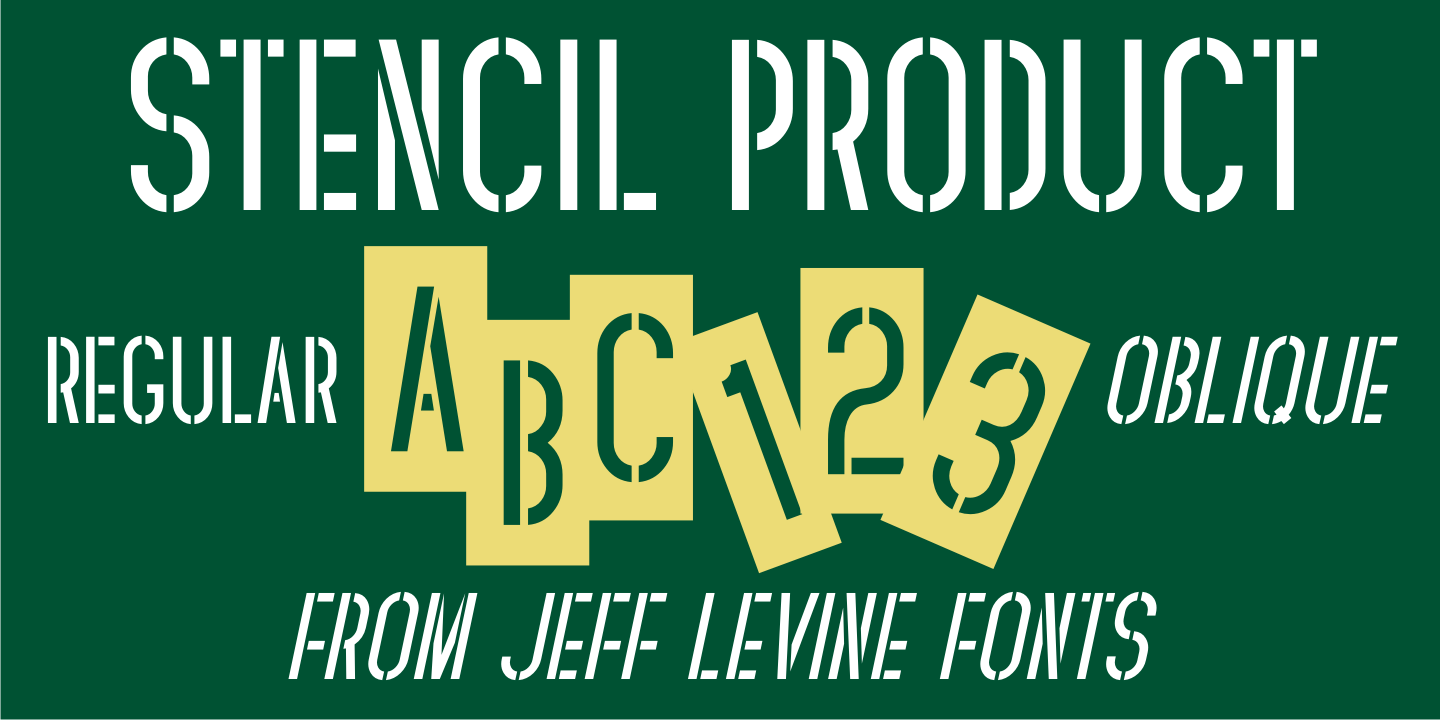
Stencil Product
The hand lettered title on the 1940 sheet music for "Pledge to the Flag" is a stencil design with wider rounded letters (such as the C, G and O). It is now available as Stencil Product JNL in both regular and oblique versions.